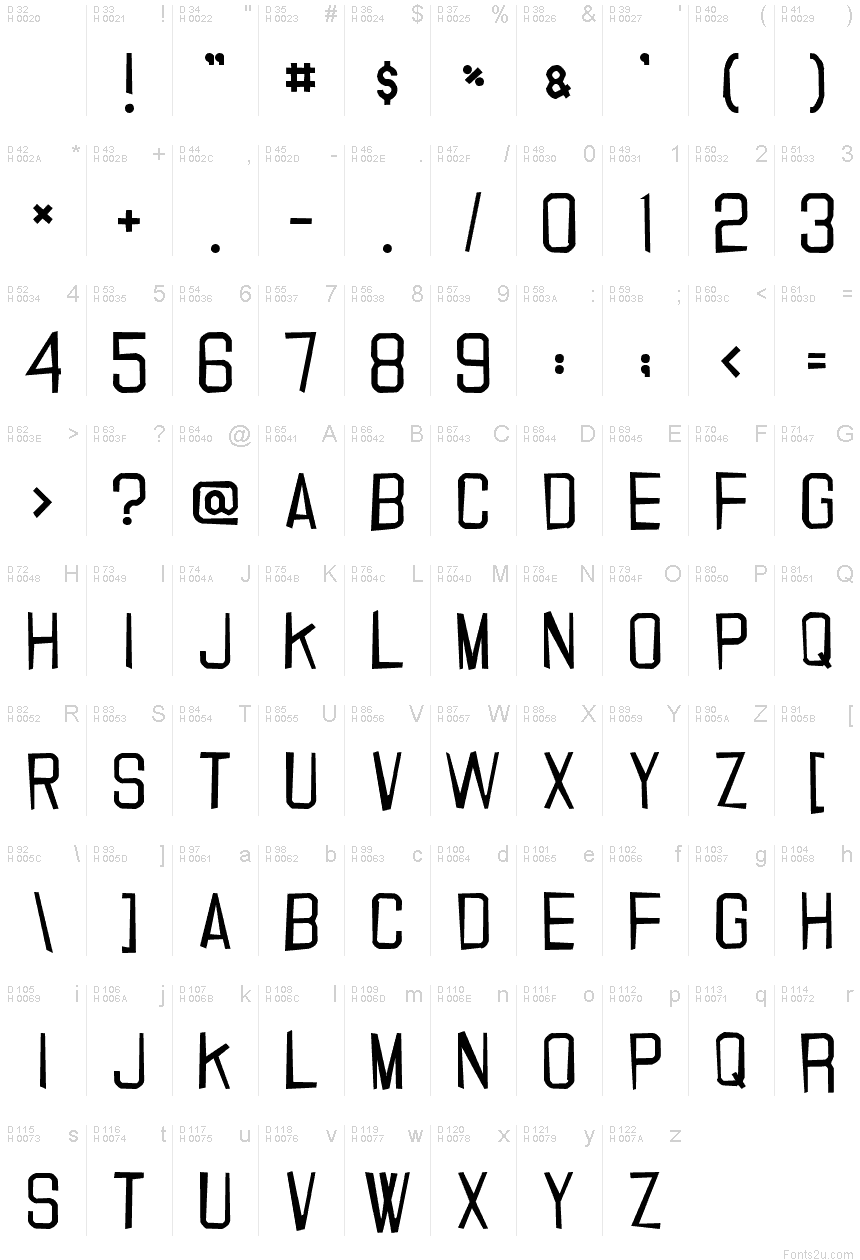
20.000 dollar bail
"20.000 DOLLAR BAIL" is a bold, playful font with a distinct comic book aesthetic. Designed by Jakob Fischer, this display font exudes a dynamic energy through its exaggerated letterforms and sharp, angular strokes. The uneven line width and irregular spacing create a sense of movement, making it an ideal choice for eye-catching headlines, editorial layouts, or branding applications that require a visually striking, attention-grabbing impact.
The font's versatility extends beyond its attention-grabbing presence, as it can also lend a sense of gritty authenticity to narratives or designs with a rebellious, unconventional tone.